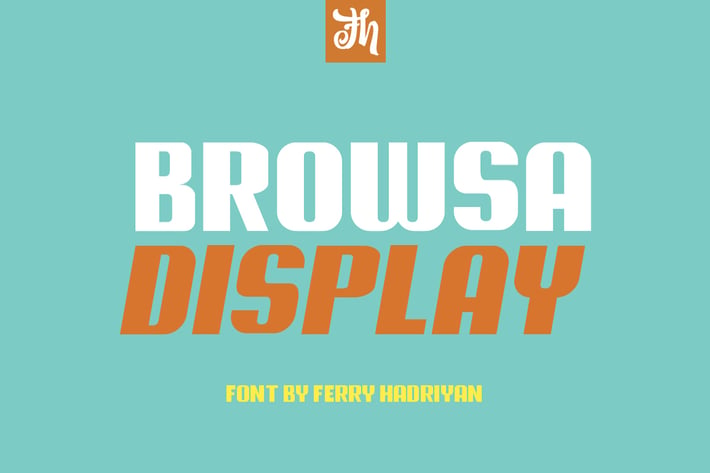
Browsa - Display Font
Browsa is display font suitable for design, logotype, element design, wedding, event, t-shirt, logo, badges, sticker, and awesome work, etc...
- All Standard Character, Symbol, and Multilanguage
- Unique style fonts